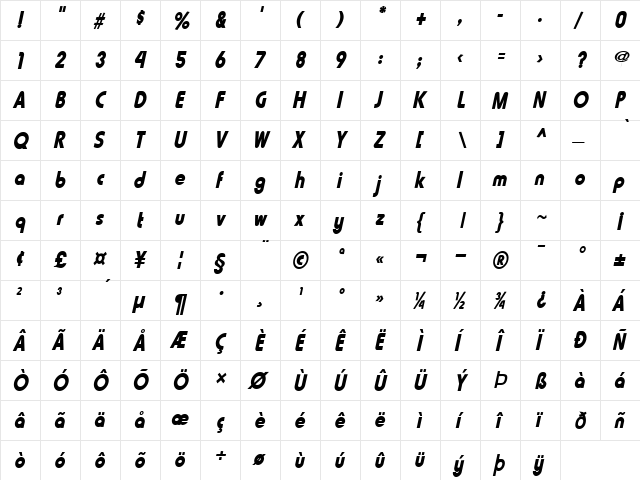
Lauren-Condensed Bold Italic Font Preview
Design Context for Lauren-Condensed Typeface
Lauren-Condensed is a composed and adaptable typeface that performs quietly and consistently across a wide range of design contexts. The dynamic lean of this cut emphasises speed and emphasis in any layout. The heavy weight commands attention and anchors typographic hierarchies. The condensed width makes it efficient for tight spaces without sacrificing legibility.